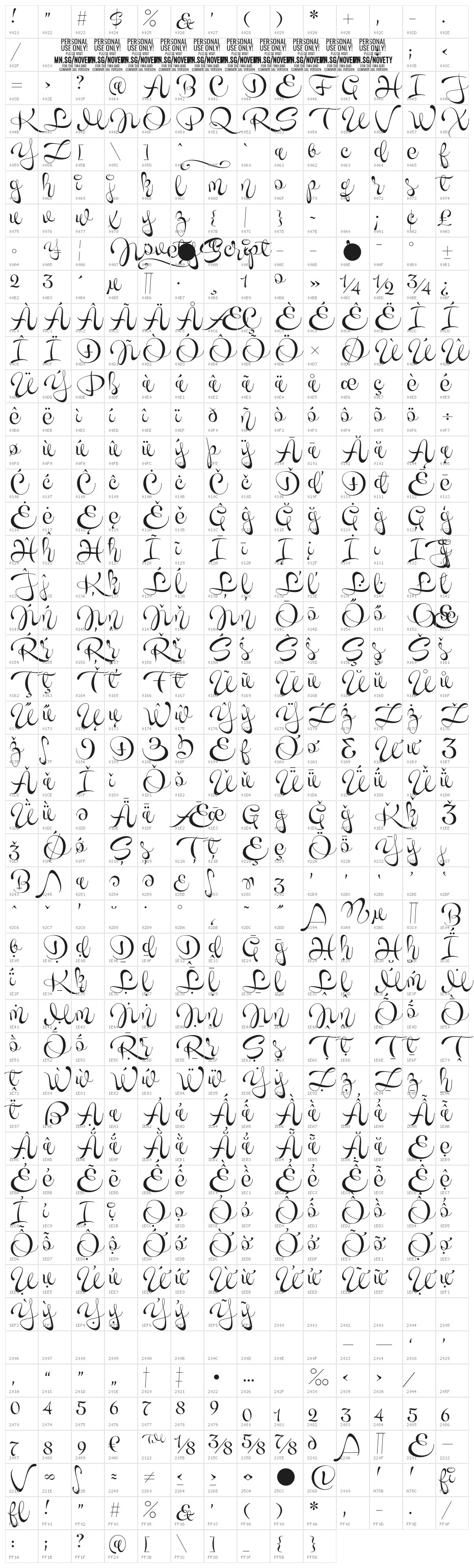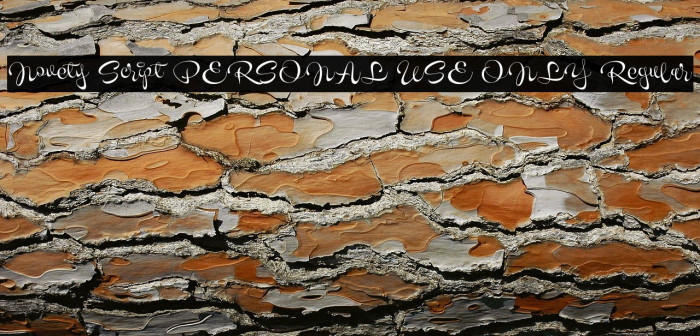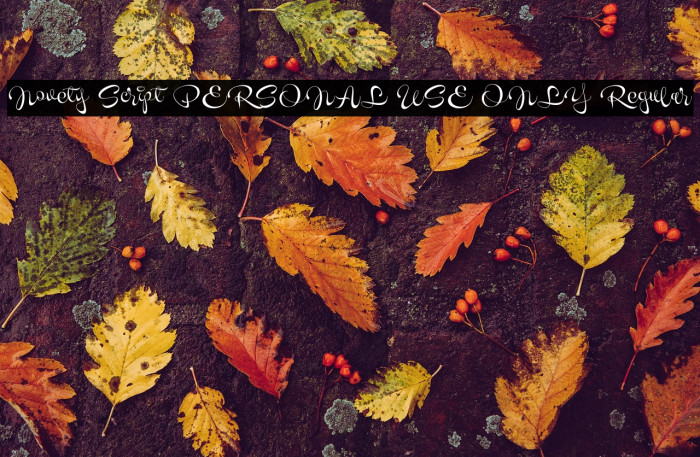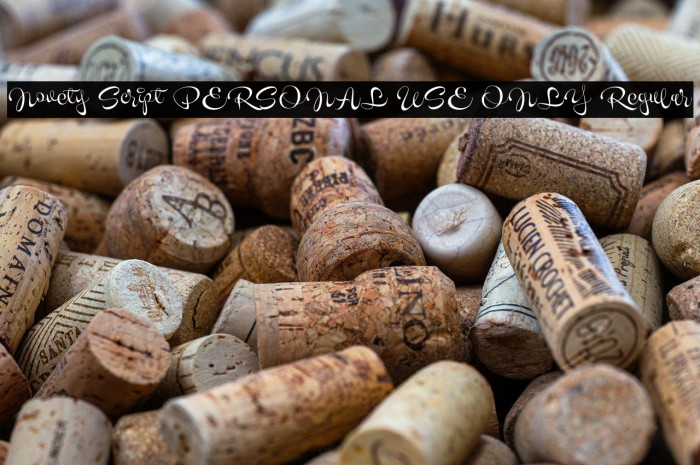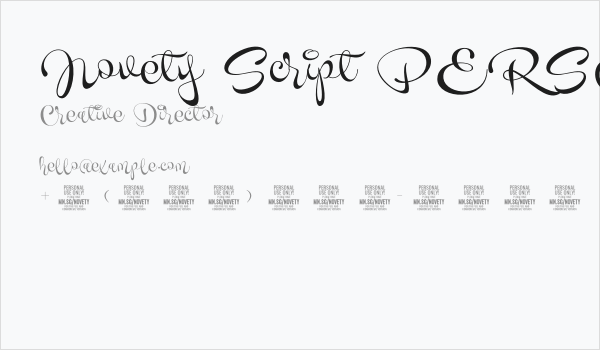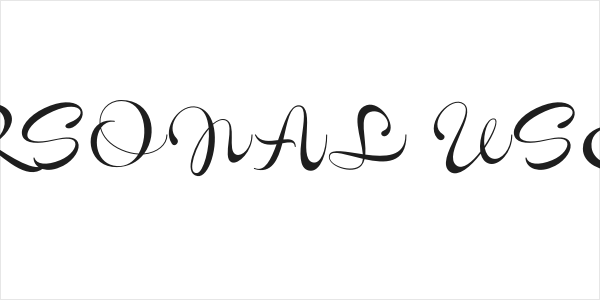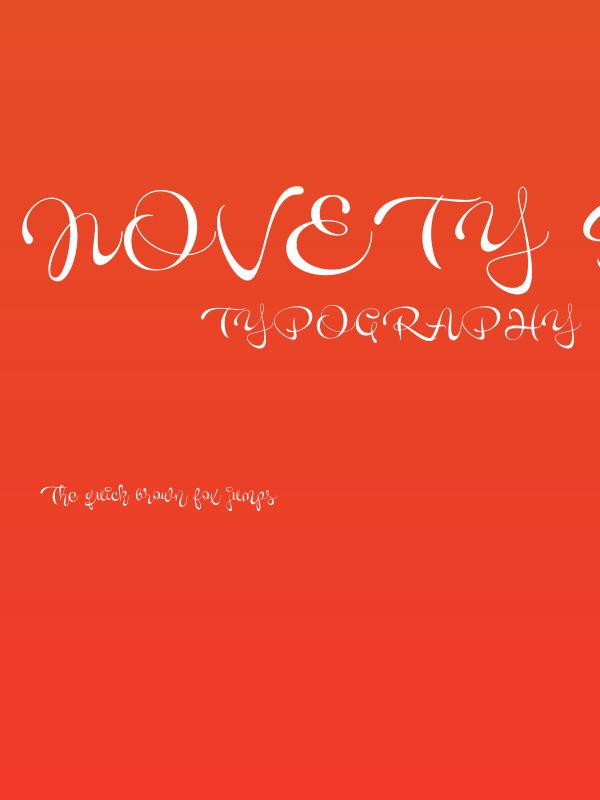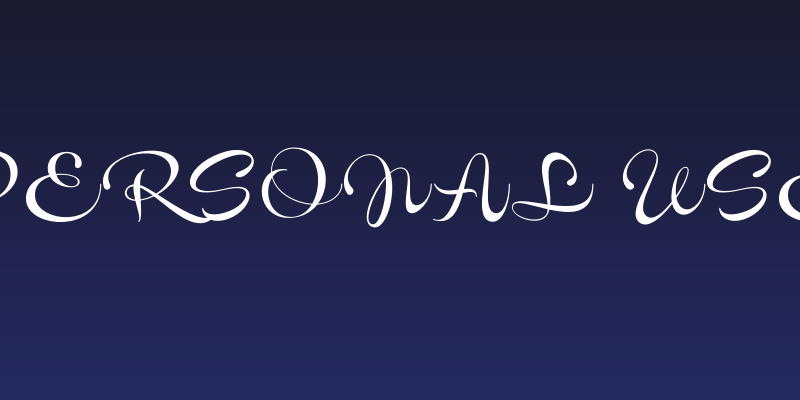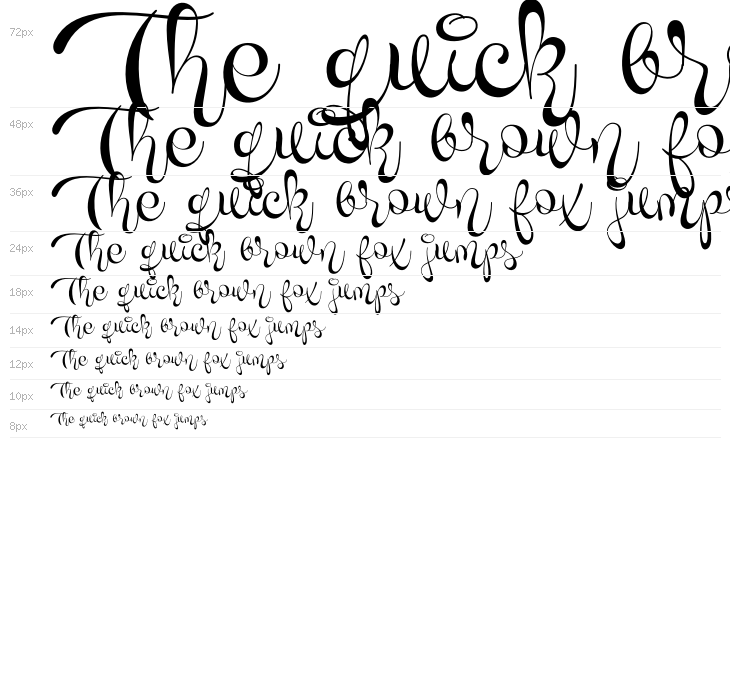
Novety Script PERSONAL USE ONLY Regular Font
Novety Script PERSONAL USE ONLY Regular Description
This font is a decorative script style that features elegant, flowing lines and intricate loops. The uppercase letters are characterized by their elaborate swirls and flourishes, giving them a sophisticated and artistic appearance. The lowercase letters maintain a consistent style with smooth curves and a playful, yet refined look. The numerals and special characters are designed to complement the overall aesthetic, featuring similar ornate details. This font's unique style makes it ideal for creative and expressive design projects.
Use CaseLogos, Invitations, Artistic projects
Proposed ProjectsIdeal for wedding invitations, greeting cards, branding, and artistic posters.